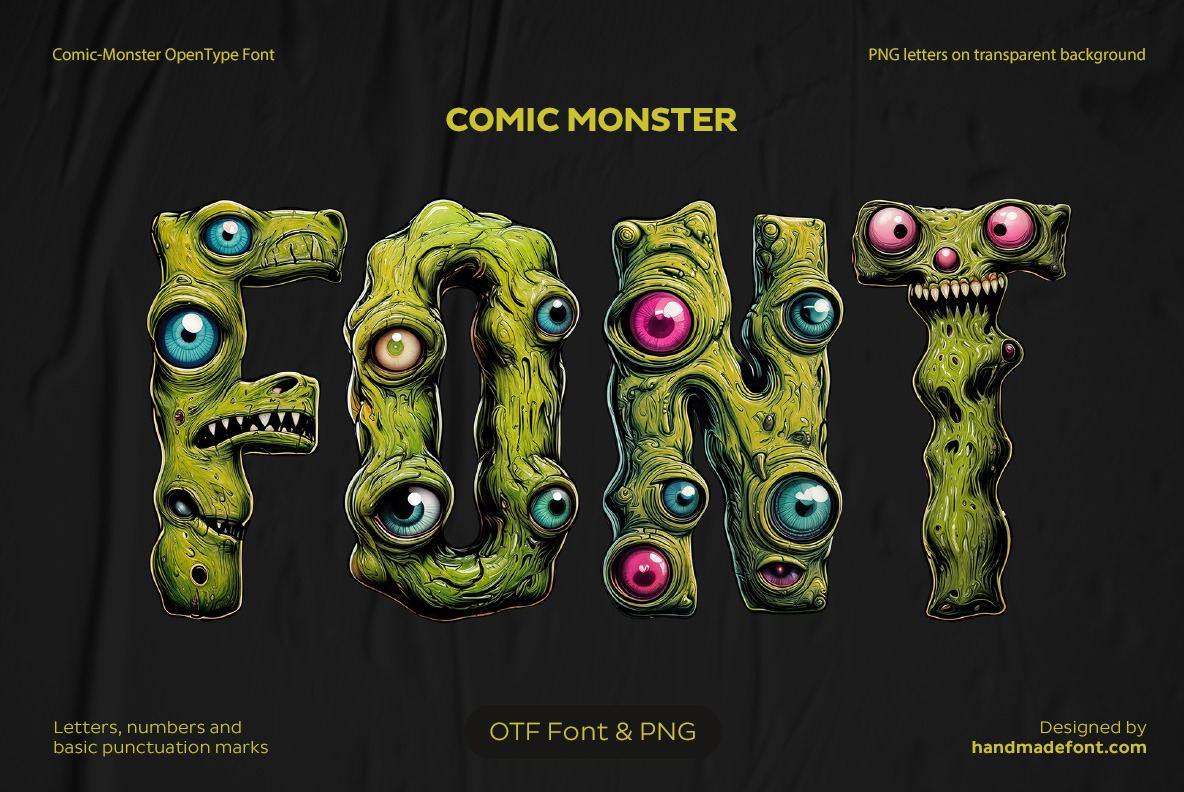
Comic Monster Font
Scary, slimy, and staring right at you—meet Comic Monster Font, the alphabet that probably crawled out from under your bed. Each letter oozes grotesque charm, stitched together from eerie green goo, bulging eyeballs, and way too many teeth. It's the ultimate monster-inspired font, perfect for horror typography, Halloween mayhem, or unsettling your nosy neighbor. Whether you're summoning spooky vibes or designing a nightmare-fueled masterpiece, these letters are alive—literally (okay, maybe not, but don’t turn your back on them). Warning: May cause chills, sinister grins, and an uncontrollable urge to check under the bed. Use with caution!
A high definition OpenType Font. Contains uppercase characters, numerals and basic punctuation. (Draw height roughly 800 pixels). All letters and glyphs that comprises this font you can see on the preview.
- Letters : A B C D E F G H I J K L M N O P Q R S T U V W X Y Z
- Numbers : 0 1 2 3 4 5 6 7 8 9
- Others : ! ? - . ' $ € % & # @